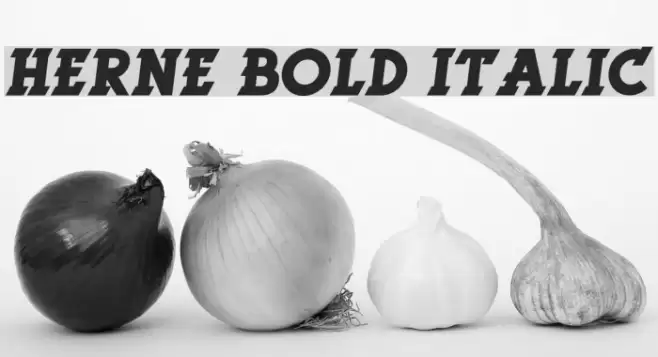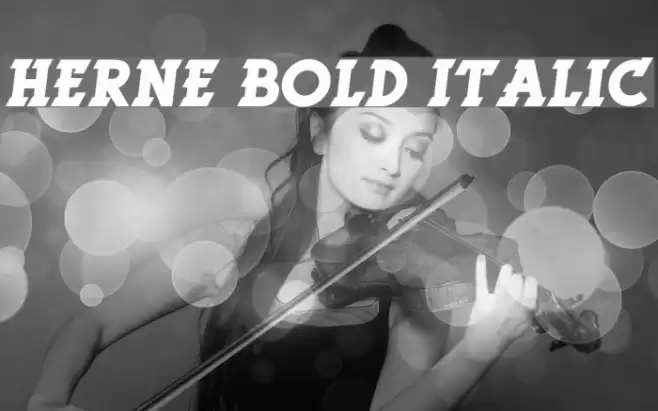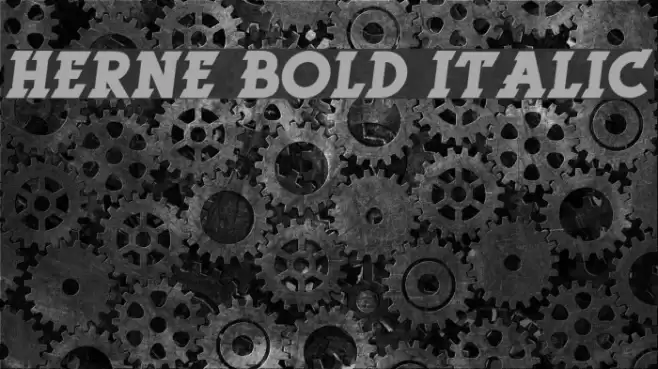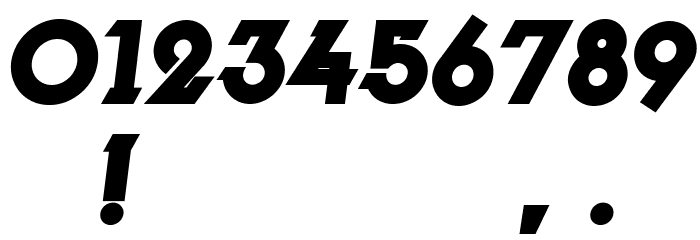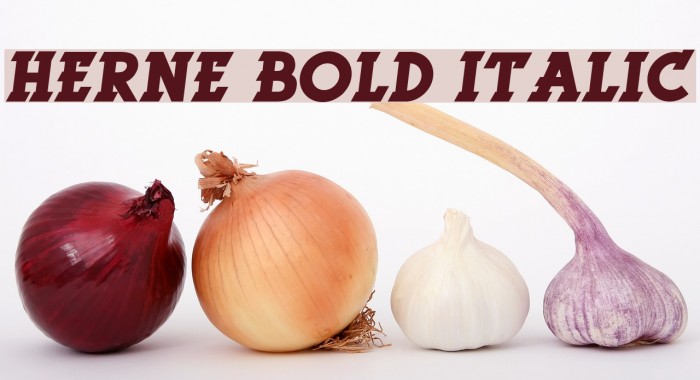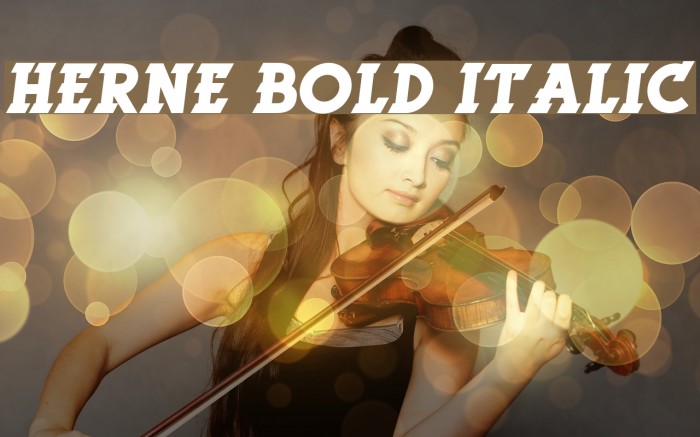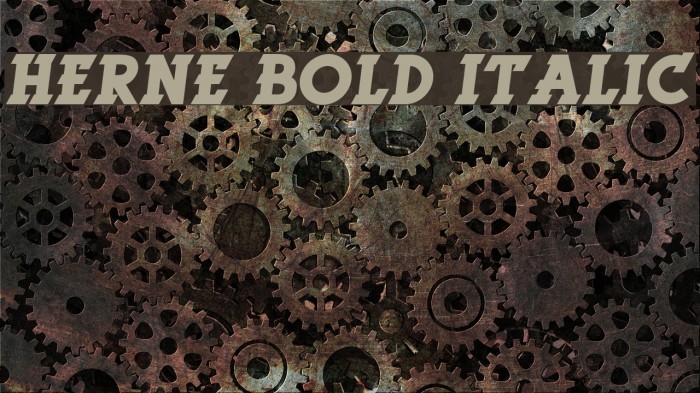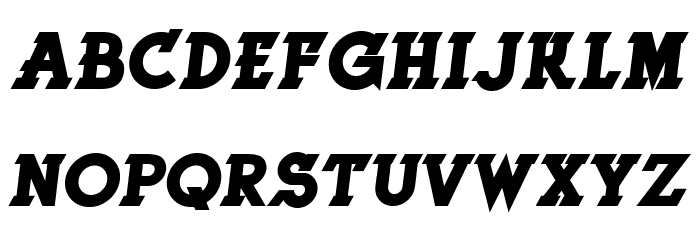
Herne Bold Italic Font
Herne Bold Italic Description
This font features a bold and italicized style with a strong, dynamic presence. The letters are slanted, giving a sense of motion and energy. The strokes are thick, providing a robust and impactful appearance. The characters are well-defined with sharp edges, contributing to a modern and assertive look. The numbers and special characters maintain the same bold and italicized characteristics, ensuring consistency across all elements. This font is suitable for making statements and capturing attention.
A bold, italicized font with a strong, dynamic presence from Uncategorized fonts.
- Proposed Projects: Ideal for headlines, posters, branding, and advertising where a bold statement is needed.